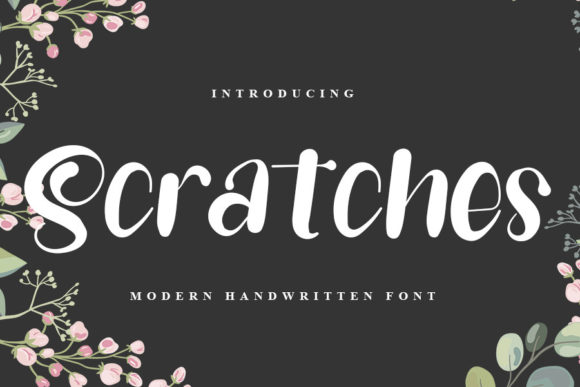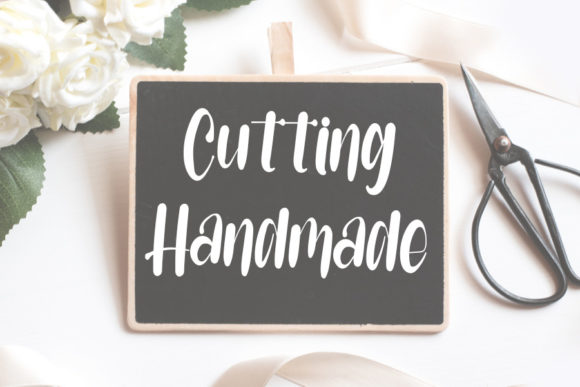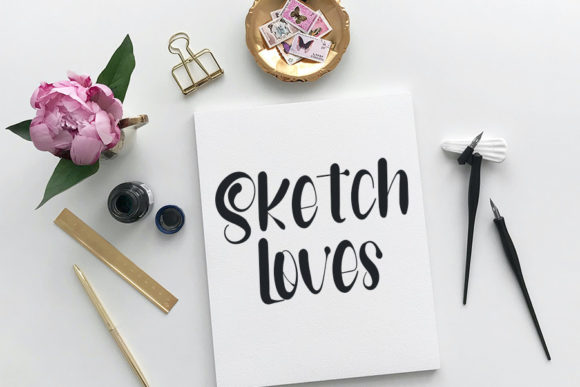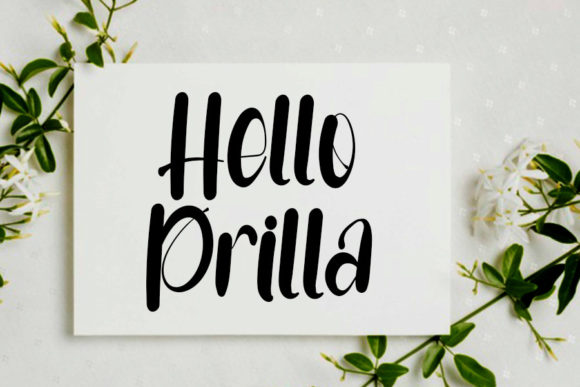
Scratches Font
About Scratches Font
Scratches is a sweet and casual handwritten font. Its flexibility and neat style will brighten up each of your designs. Have fun with this cool font and explore its endless variations.